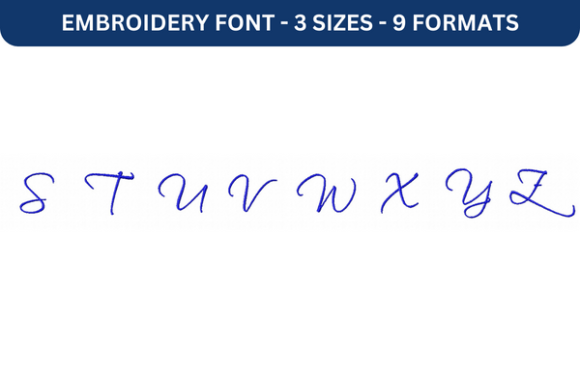
Scriptina Font Upper S to Z
As an embroidery designer with years of experience in crafting unique and marketable designs, I've had the chance to work with a variety of machine embroidery designs. One that stands out for its versatility and elegance is the Scriptina Font Upper S to Z. This embroidery font is ideal for those looking to add a personal touch to their craft fair products, handmade items, and commercial embroidery projects.
First Impressions: A Timeless and Elegant Design
The Scriptina Font Upper S to Z exudes a sense of sophistication and refinement. It's not overly decorative or flashy, but rather a clean, flowing script that feels both modern and classic. The font has a softness that makes it perfect for personalized items, while still maintaining enough structure to be legible at a glance. Whether you're creating a name tag for a back-to-school item or adding a quote to a custom tote bag, this font delivers a premium feel without being too ornate.
Where Scriptina Font Upper S to Z Shines
This embroidery font works exceptionally well on a range of craft fair products. On a tote bag design, it adds a subtle yet elegant flair that draws attention without overwhelming the overall look. For apron embroidery, it’s a great choice for adding names or dates, especially when paired with neutral thread colors. On tea towel embroidery, the font maintains clarity even on textured surfaces, making it a reliable option for kitchen linens.
When used on embroidered patches, Scriptina Font Upper S to Z provides a refined look that can elevate small shop products. It also performs well on fabric pouches and pillow covers, where a delicate yet readable font is essential. For caps, the font adapts well to curved surfaces, though care must be taken to ensure proper stitch density and spacing.
Practical Selling and Production Considerations
One of the strengths of Scriptina Font Upper S to Z is its adaptability. It can serve as a small accent or a large focal point, depending on the project. This flexibility makes it ideal for batch production, as it can be scaled up or down without losing its character. When photographing for Etsy listings or printable mockups, the font looks crisp and professional, which is crucial for online buyers who can’t see the finished product in person.
However, there are some practical considerations. The font includes intricate details that may require careful handling on dense stitch areas or thick fabrics. For dark fabric, using a contrasting thread color is essential to maintain visibility. Additionally, when working with textured towels or curved cap surfaces, it’s important to test the design on scrap fabric before committing to a larger project.
Careful-Use Notes for Embroidery Designers
While Scriptina Font Upper S to Z is a high-quality embroidery font, there are a few things to keep in mind. Tiny details may not hold up well on very small lettering, so it's best to avoid using it for anything less than a 2-inch height. On thick fabric, a good stabilizer is crucial to prevent puckering and distortion. Also, be mindful of stitch density—too much could cause the design to lose its intended softness.
Impact on Visual Appeal and Customer Engagement
When displayed at a craft fair, Scriptina Font Upper S to Z has the potential to catch the eye of customers looking for something unique. Its elegance and readability make it a strong contender for handmade gifts and booth samples. It adds value to each small shop product by giving it a polished, personalized touch that customers appreciate.
From a brand consistency standpoint, this font offers a cohesive look that can be applied across multiple products. Whether you're creating market bags, embroidered patches, or back-to-school items, the font maintains a consistent aesthetic that reinforces your brand identity.
Embroidery Designer Tips for Success
Before finalizing any project with Scriptina Font Upper S to Z, I recommend testing the design on different fabric types. Check how it looks with various thread colors and ensure that the hoop size accommodates the design without stretching or distorting the letters. Pay close attention to spacing and stitch density to avoid overcrowding or gaps in the text.
Creating at least one real mockup is essential. Seeing the design on actual fabric helps identify any issues that might not be apparent on a screen. Comparing fabric colors and ensuring the font contrasts well will also improve the final outcome. Lastly, always review the design assets and confirm that the commercial license allows for resale of the finished product.
Conclusion: A Versatile and Marketable Embroidery Font
In summary, Scriptina Font Upper S to Z is a valuable addition to any embroidery designer’s toolkit. Its elegant, readable style makes it suitable for a wide range of handmade products and craft fair items. With proper care and attention to detail, this font can help elevate your offerings and attract customers looking for quality, personalized items.